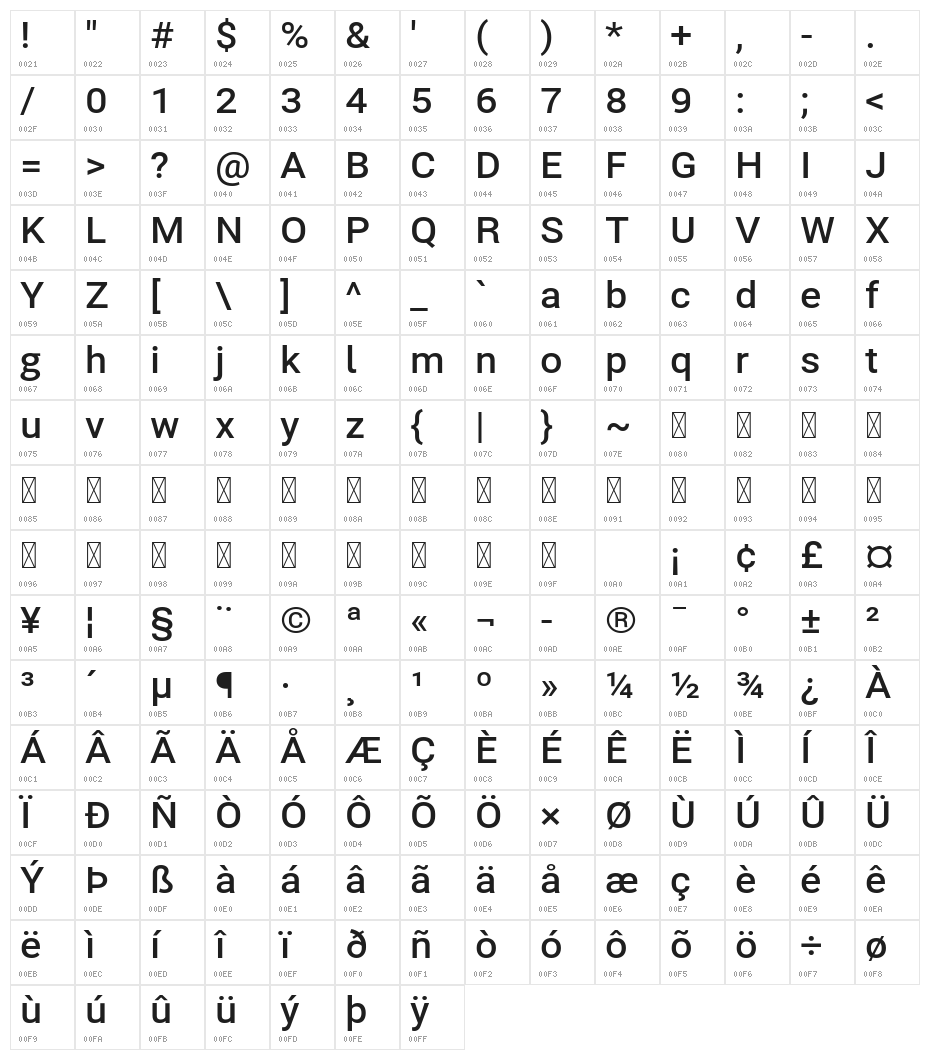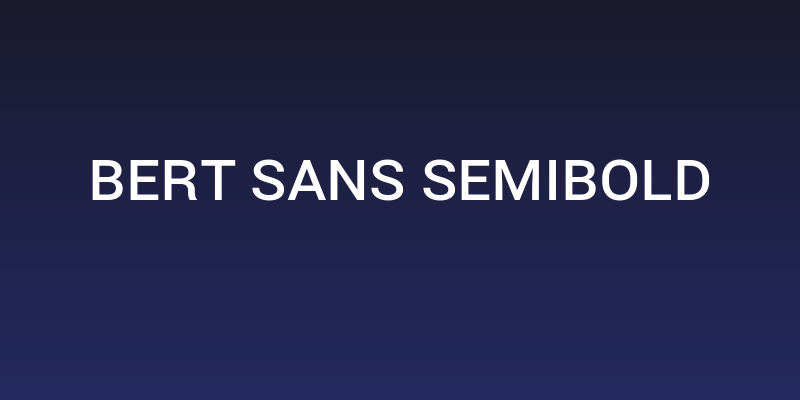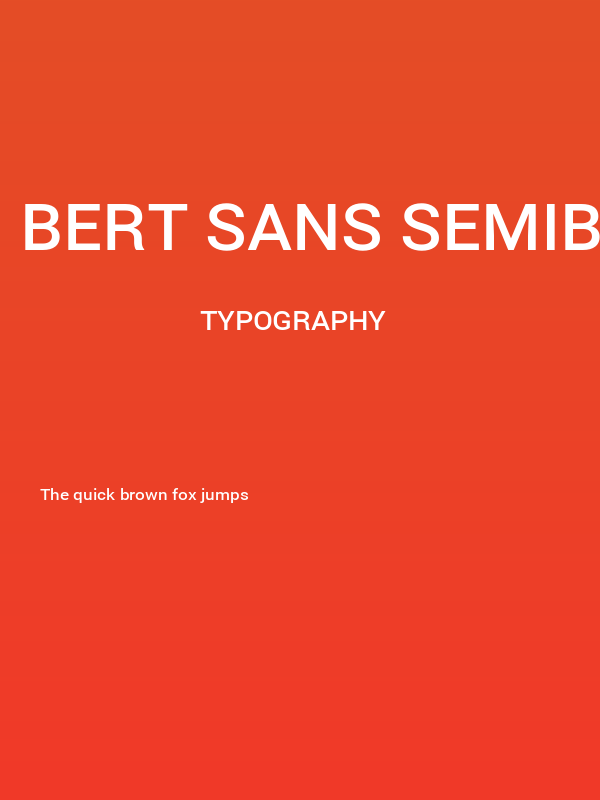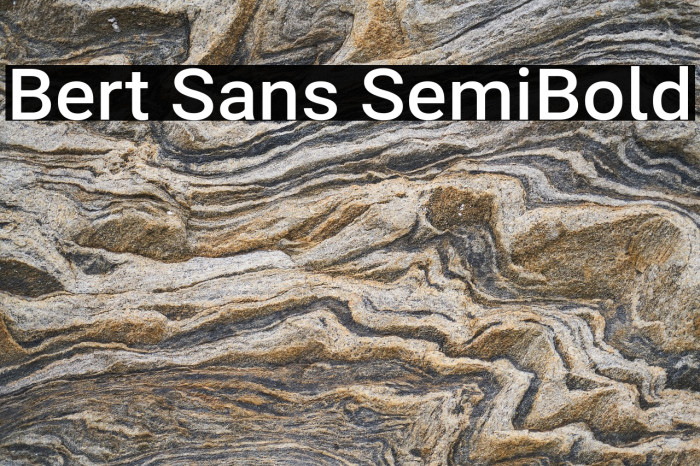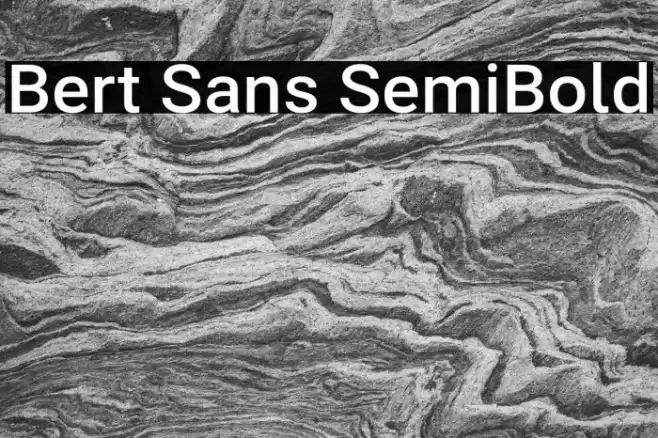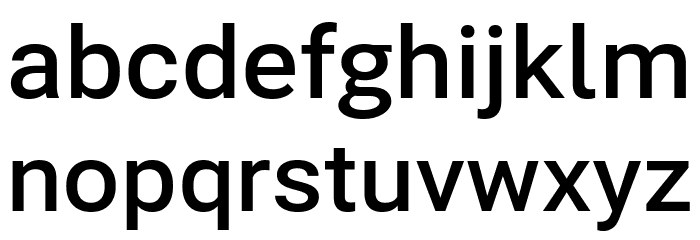
Bert Sans SemiBold Font
Bert Sans SemiBold Description
This typeface features a clean and modern sans-serif design, characterized by its semi-bold weight that provides a strong yet approachable appearance. The characters are well-balanced with a uniform stroke width, offering a harmonious and legible text experience. The uppercase and lowercase letters maintain a consistent style, with rounded edges that soften the overall look. The numerals and special characters are designed to complement the alphabet, ensuring clarity and readability across various applications. The font's simplicity and versatility make it suitable for a wide range of design projects.
| Use Case | Headlines, Body text, Logos |
| Proposed Projects | Ideal for branding, web design, advertising, and editorial layouts. |